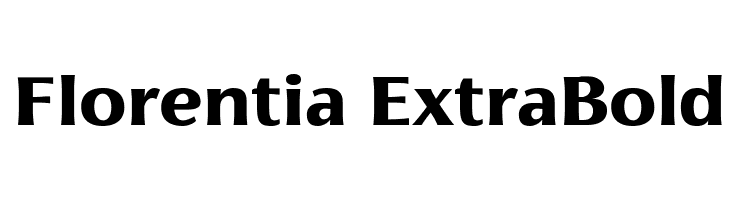
A modern, elegant sans-serif font with clean lines and balanced structure.
A bold, modern font with geometric shapes and expanded width, ideal for headlines.